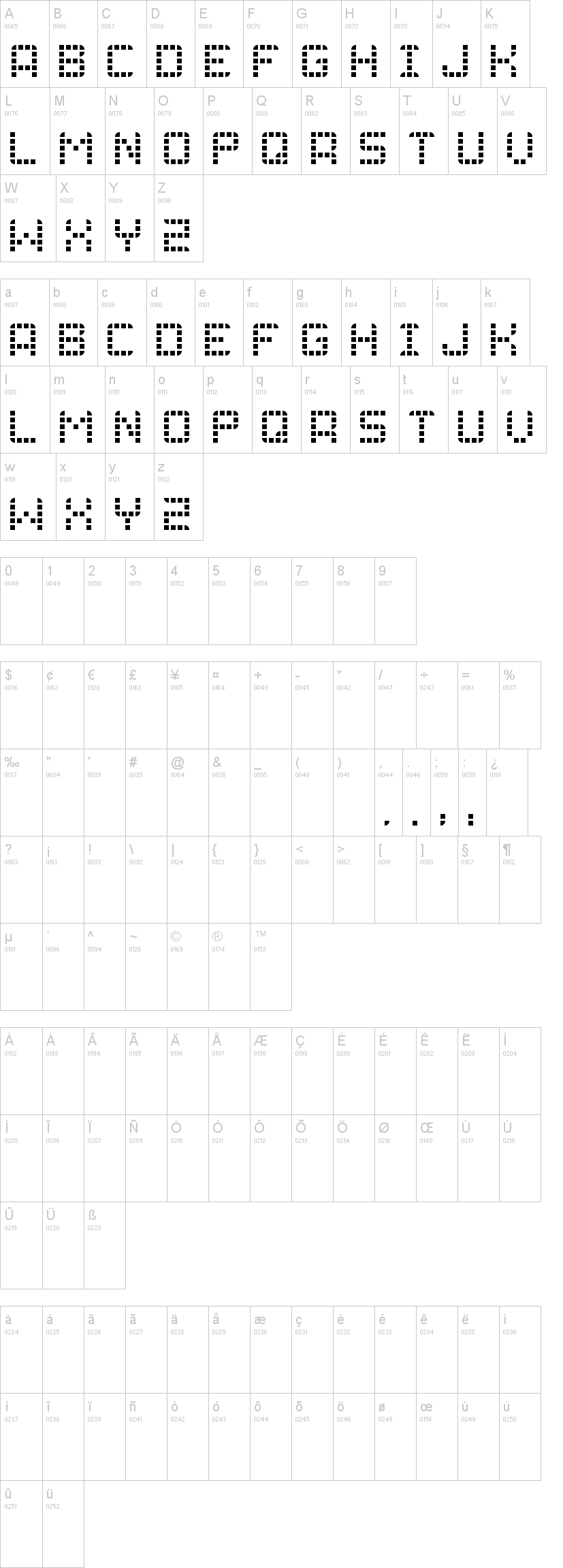
OVERVIEW:A typeface designed for the Type Factory Museum. Main usage is for titles, headlines, and exhibitions. CHALLENGE: Create a typeface inspired by the Type Factory Museum mark using the basic shapes of design. SOLUTION: The typeface GRID was designed using only two shapes, a square and a quarter circle. The quarter circle came from combining the circle and the triangle into one singular shape. Working off of a specialized grid, a formula was developed for the creation of each letter. A five by five grid block became the foundation, as seen in the Type Factory mark. Each letter was to be no wider or taller than the five squares. Using the quarter circle, each letter was to contain at least one of these shapes within its form.